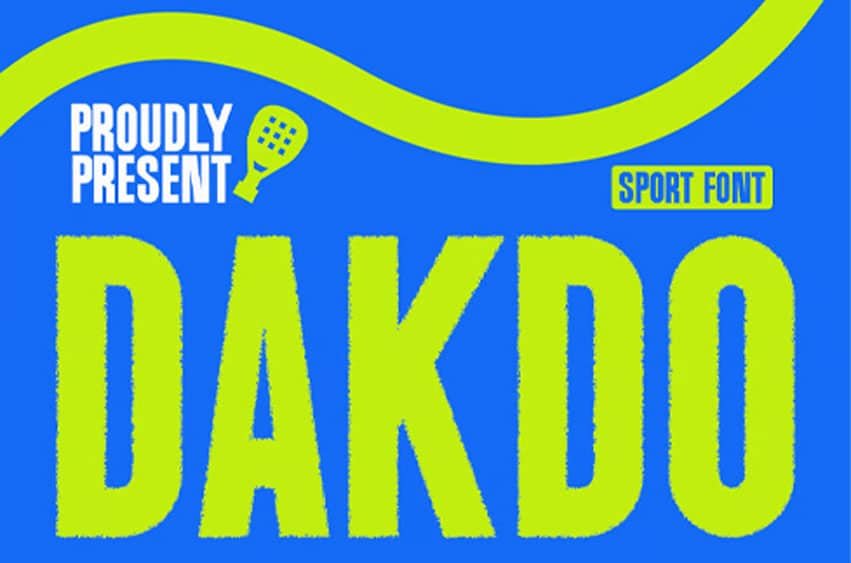
Dakdo Sports Font is bold, condensed sans-serif typeface features a rugged, textured outline that evokes a sense of movement and intensity. The letterforms are characterized by their tall x-height and heavy weight, providing excellent legibility and impact for large-scale applications.
The ‘D’ and ‘O’ have rounded exterior corners that soften the otherwise rigid, blocky structure, while the ‘A’ and ‘K’ utilize sharp, straight strokes to maintain a clean internal geometry. The distressed edges add a tactile, grainy quality that suggests a high-performance, energetic environment. It is perfectly suited for team logos, stadium signage, and dynamic social media graphics.
Perfect for :
- Social media post sports
- Sports Poster and Flyer
- Gym Template and banner